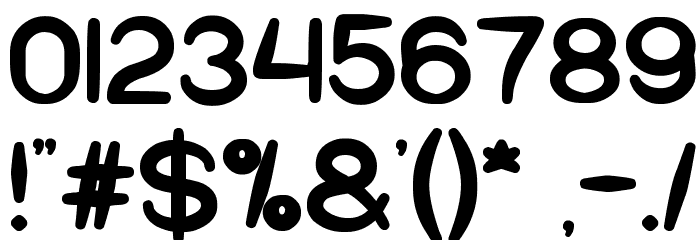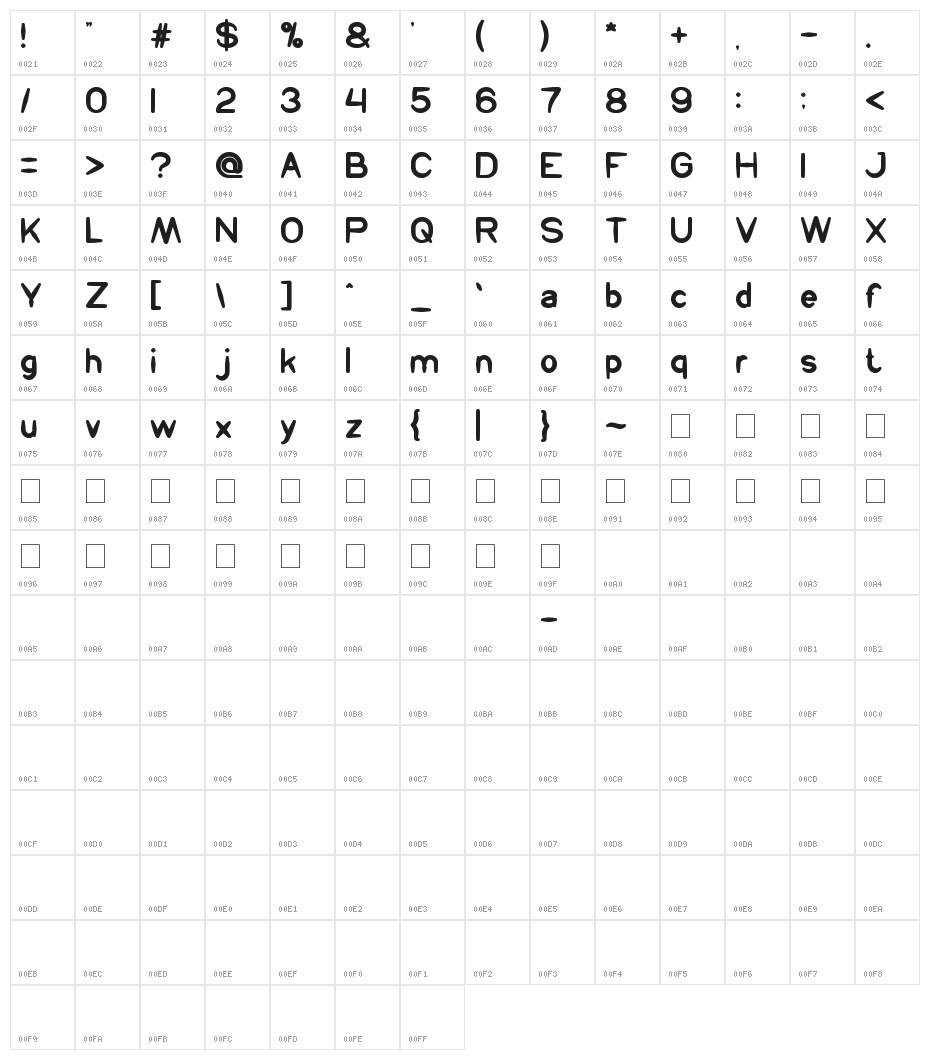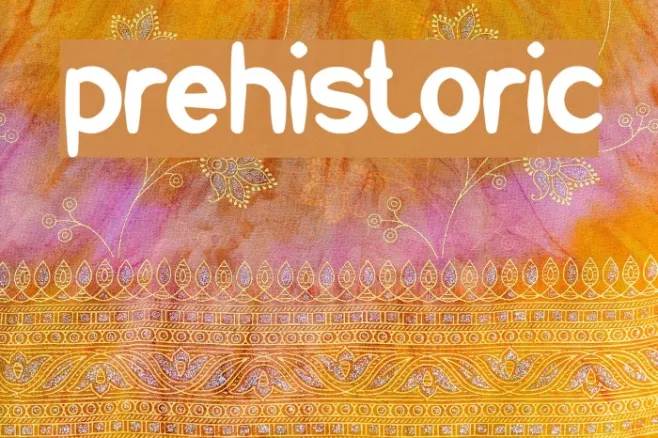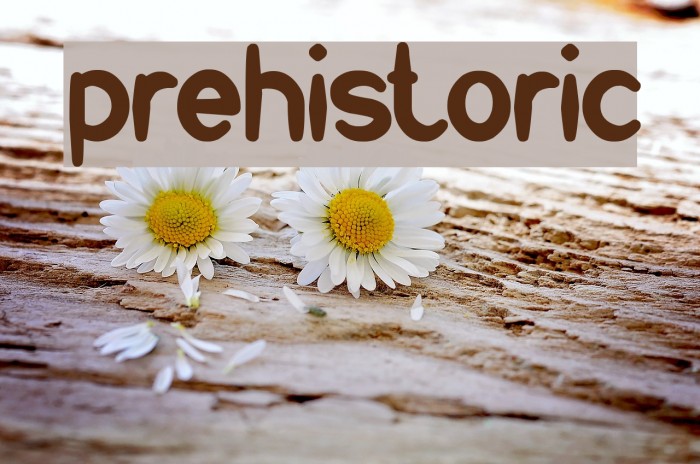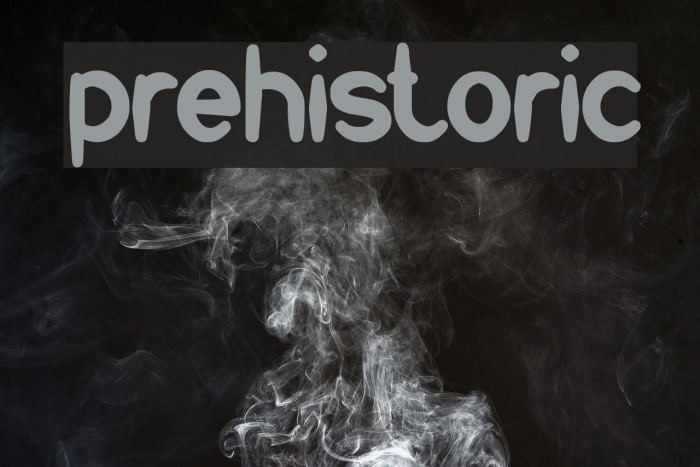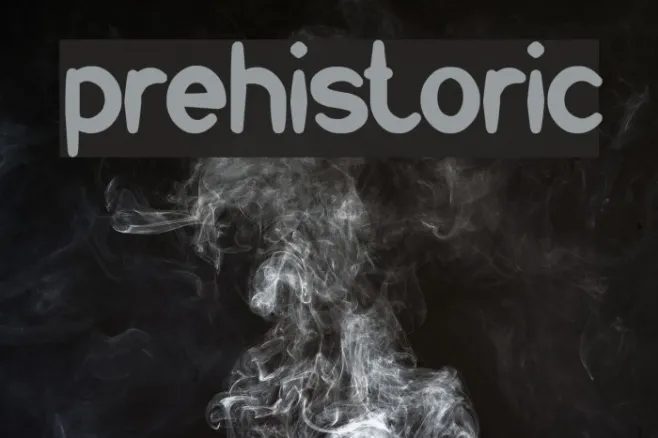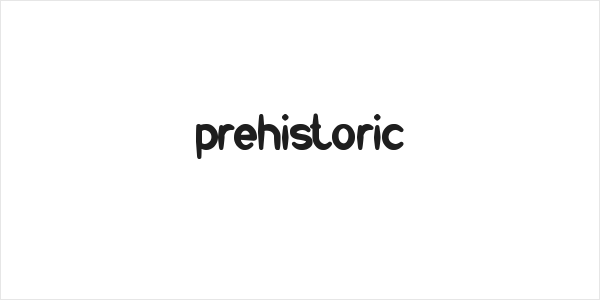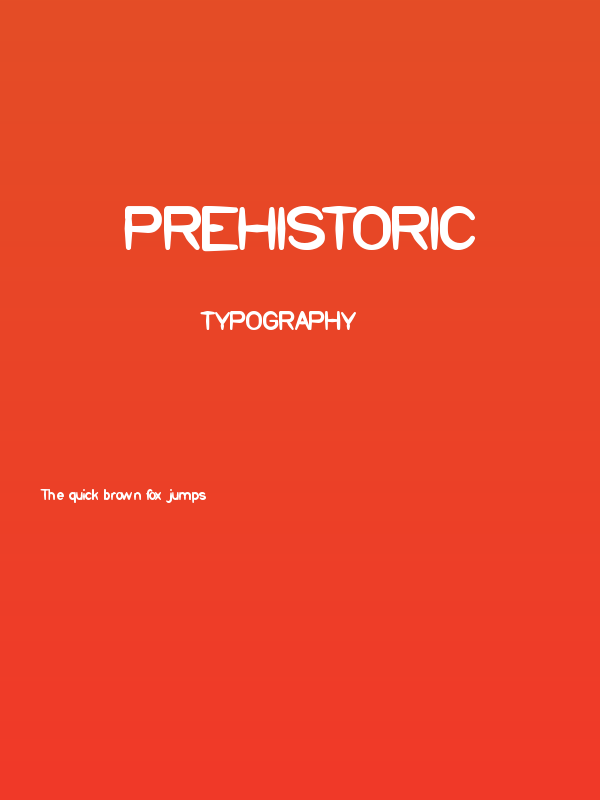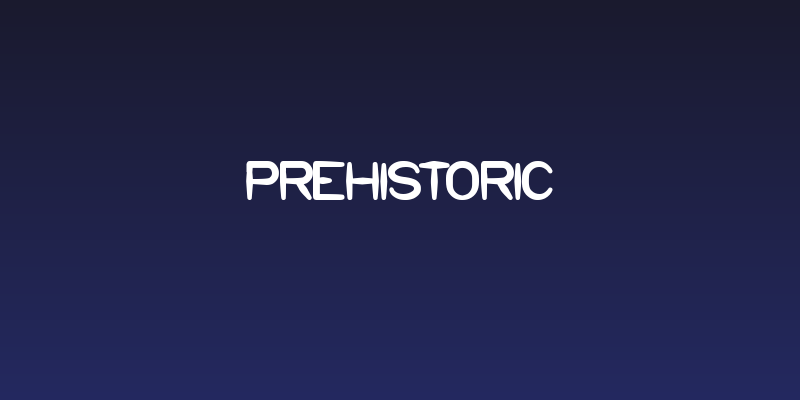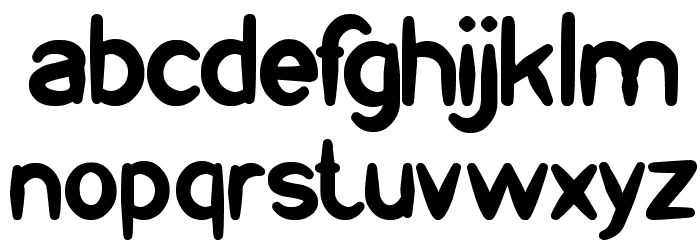
prehistoric Font
prehistoric Description
This playful and bold font features a unique, hand-drawn style with rounded edges and a slightly uneven baseline, giving it a whimsical and informal appearance. The characters are thick and substantial, with a consistent stroke width that maintains readability while adding a touch of personality. The uppercase and lowercase letters are well-proportioned, and the numbers and special characters complement the overall style, making it versatile for various creative projects. Its distinctive look is ideal for capturing attention and conveying a sense of fun and creativity.